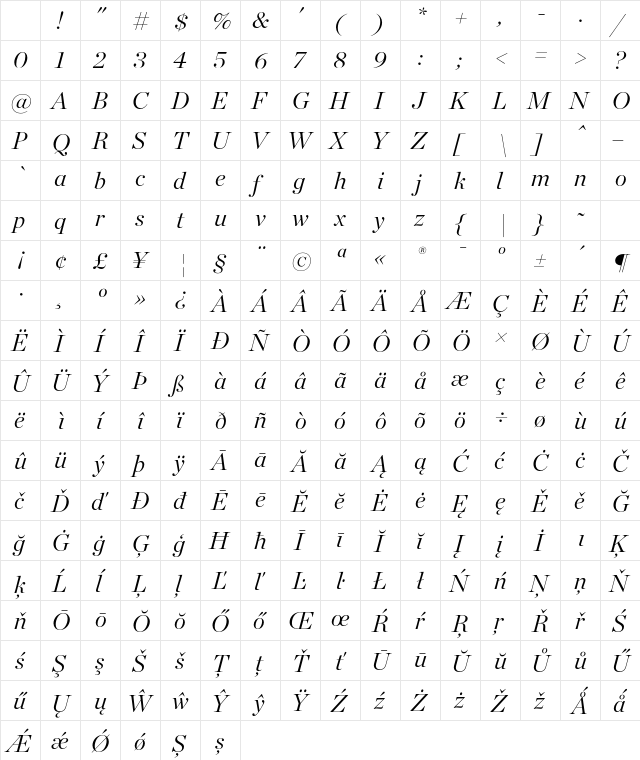
Complete Chronicle Display Light Italic glyph index. Displaying only characters natively supported by Chronicle Display Light Italic font.
Chronicle Display is built around its visual character rather than neutral utility - its distinctive forms are designed to make an impression at display sizes. The slanted form adds forward momentum and visual energy. Its slender proportions lend an understated elegance to any composition.
Font Pairing: Pair with a clean neutral sans-serif for body copy to let Chronicle Display's character lead without overwhelming the composition.
Pro Tip: Use Chronicle Display exclusively at display sizes - it was designed to be seen, not read at length. Let a neutral companion handle body copy.